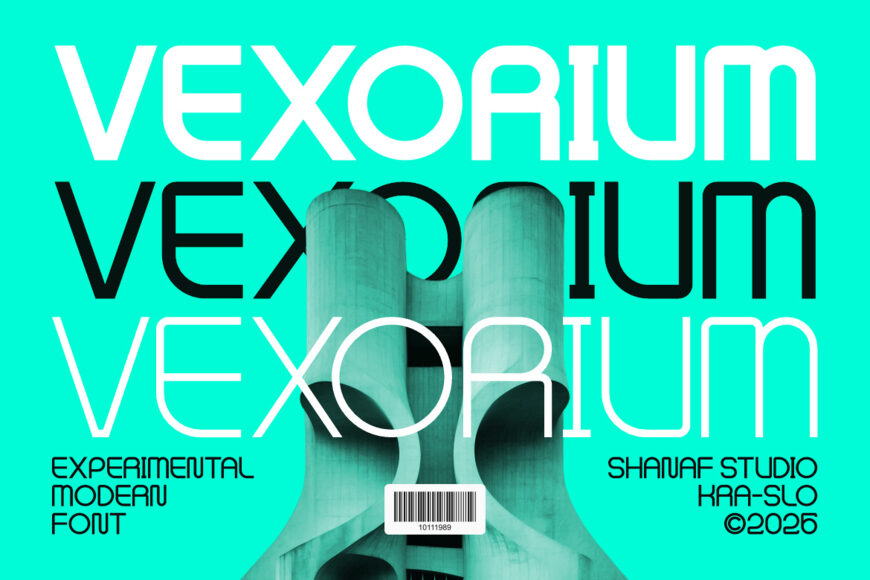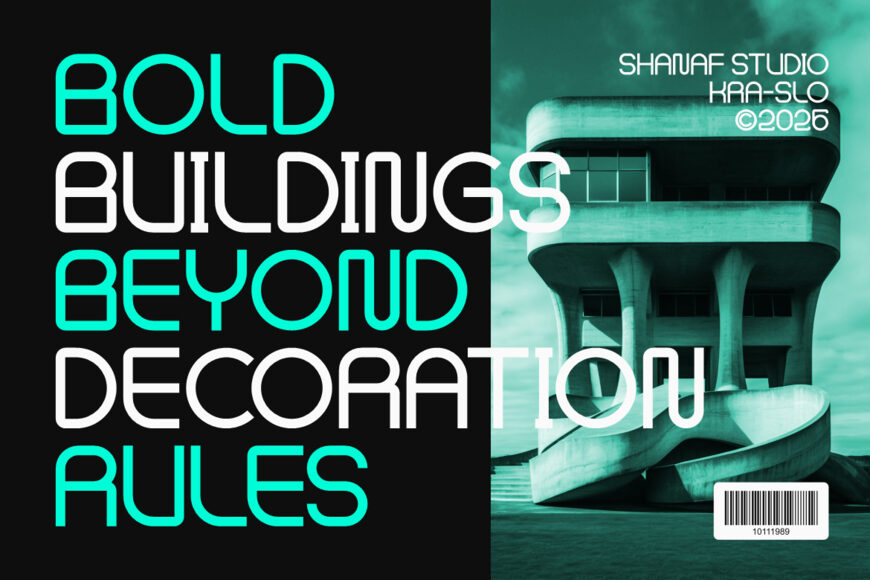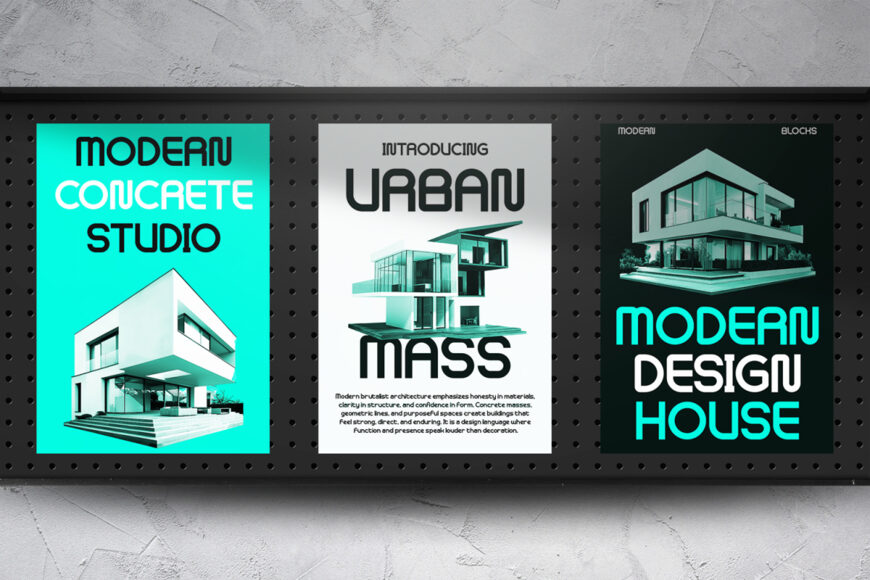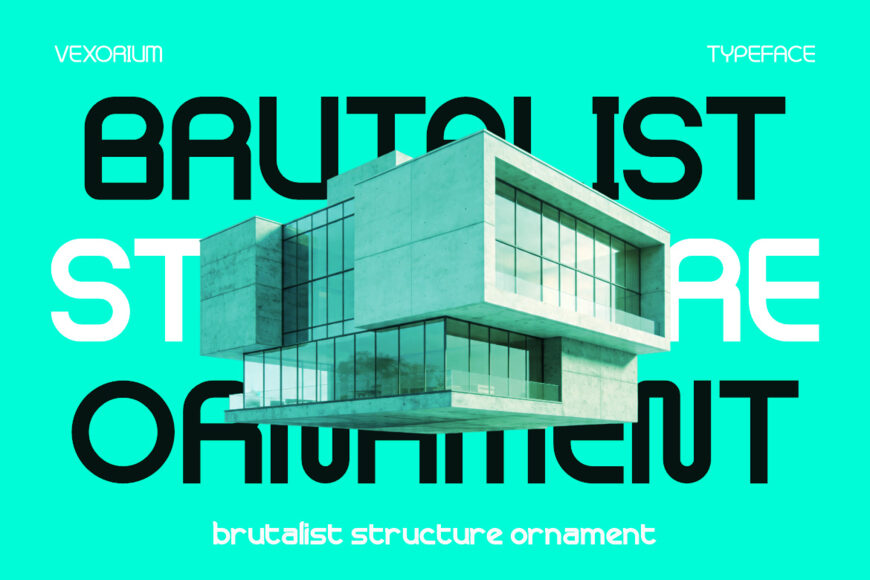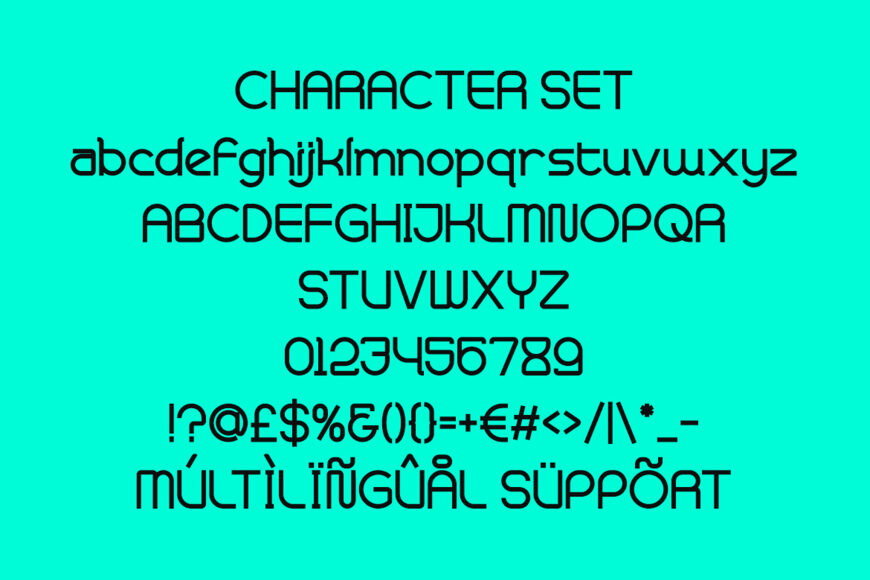
Vexorium Font Family
Vexorium Font combines architectural precision with experimental character construction. The letterforms feature a tall proportion, consistent stroke weight, rounded corners, geometric curves, and carefully balanced spacing.
Several characters introduce unconventional structural details that create a futuristic personality without sacrificing readability. The design feels clean, calculated, and progressive. Its streamlined construction reflects the visual language of contemporary architecture, urban development, industrial design, and forward-thinking branding.